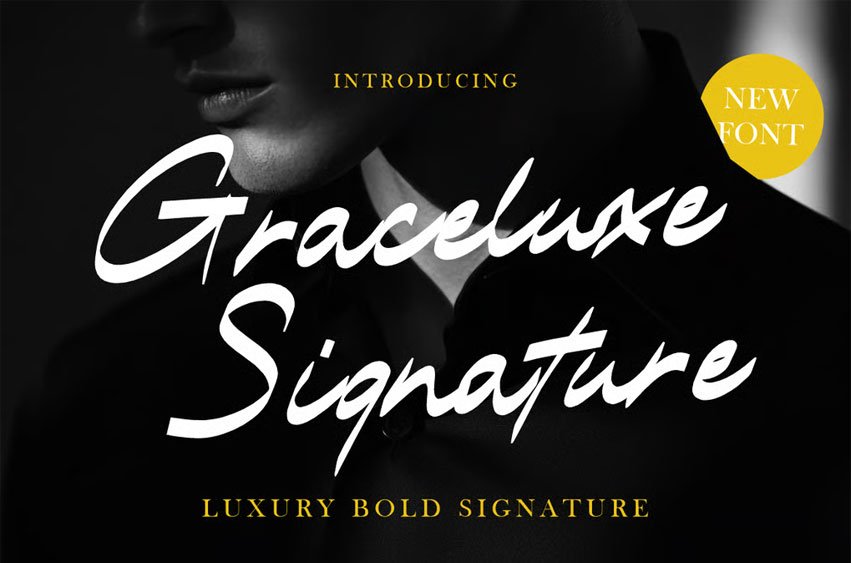
Graceluxe Signature Font captures sophistication through its confident strokes and fluid handwriting style. The letters are slightly slanted with bold yet graceful lines, reflecting a sense of confidence and exclusivity. Each curve and connection feels intentional, making it ideal for creating high-end designs that balance modern elegance with artistic flair. The font’s medium-to-thick brush pressure gives it a striking presence while maintaining smooth flow and refined character spacing. Graceluxe Signature Font evokes the essence of handwritten, bold, poised, and effortlessly stylish.
This font is perfect for logo design, personal branding, fashion editorials, invitation cards, photography watermarks, magazine titles, and elegant packaging. Its natural rhythm and style make it versatile for both formal and creative contexts. Use it to bring a signature touch to modern branding, wedding stationery, or exclusive marketing materials. The luxurious character of Graceluxe Signature Font ensures every word feels curated and timeless, leaving a lasting impression. Designed for designers who appreciate simplicity and finesse, this typeface transforms ordinary text into an emblem of style and distinction.